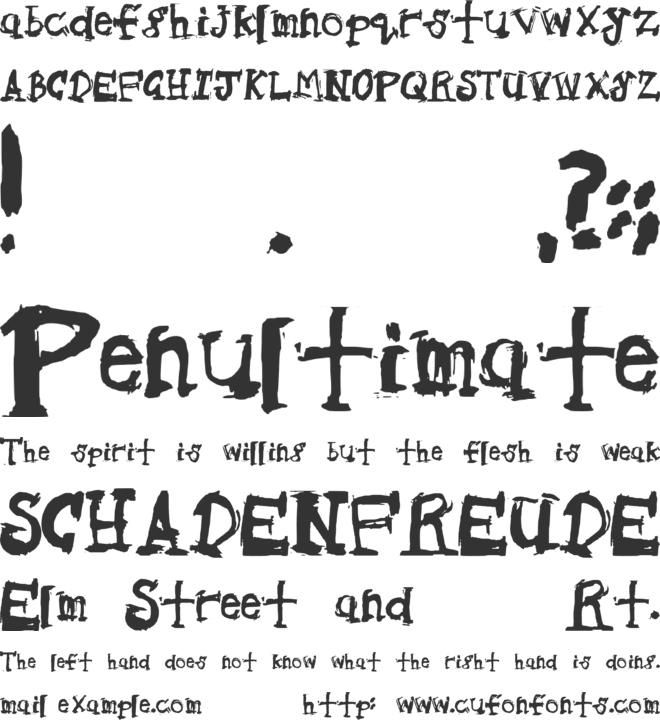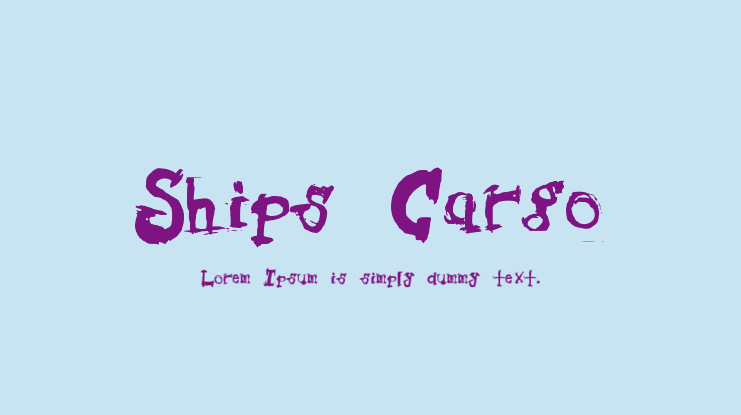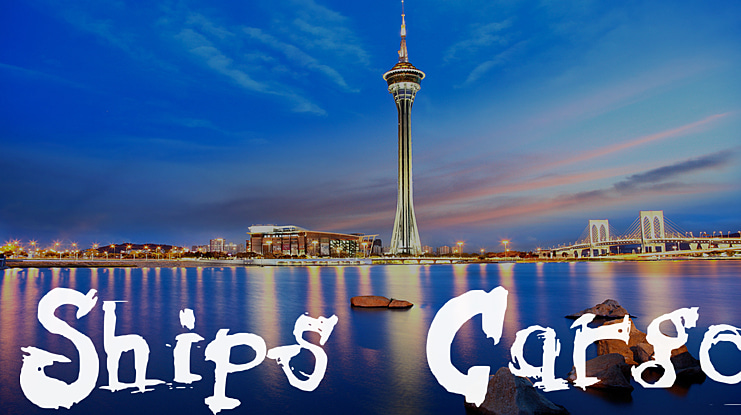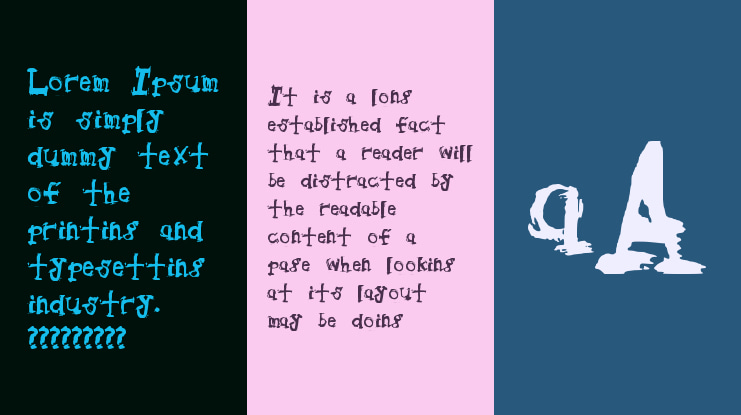
Ships Cargo Font
This font looks like it could have been stamped on the side of wooden boxes being carried by old wooden ships, centuries ago. The background image was free to use from Pixabay. If you want to use this font commercially, it only costs 99c at: https://www.creativefabrica.com/designer/shelley-2 Thank you!